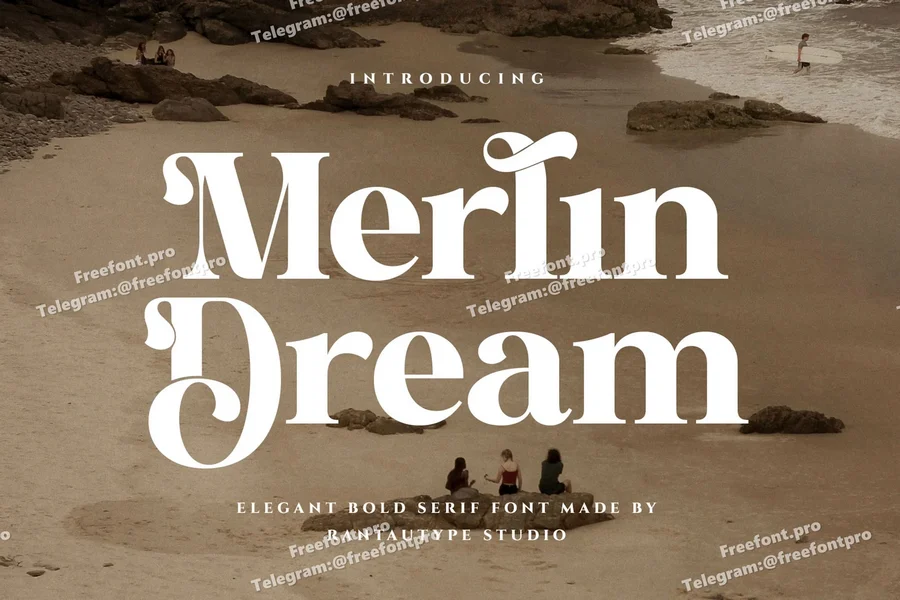
Merlin Dream Elegant Bold Serif Font
Merlin dream is bold serif font blends sophistication with strength, making it the perfect choice for designs that demand both refinement and impact. Characterized by its prominent serifs and strong stroke contrast, this typeface commands attention while maintaining a timeless sense of style. Each letterform is meticulously crafted with clean lines, graceful curves, and confident structure, offering a balance between classic elegance and modern authority.
Merlin dream is a perfectly choice for any creative endeavor, chic, lifestyle design such as logotype, advertisements, watermark on photography, stationery, branding project, display and magazine, invitation, corporate brand, product design, label, business project and many other project with modern touch.
Alternate and Ligature